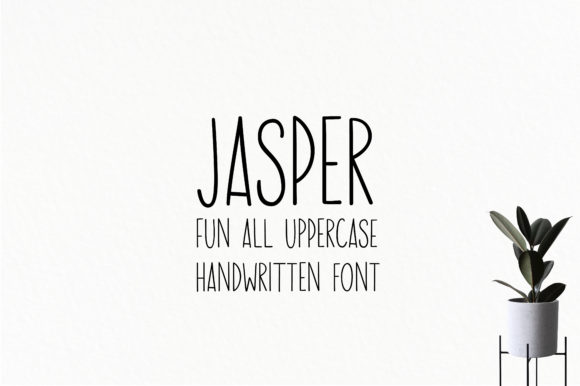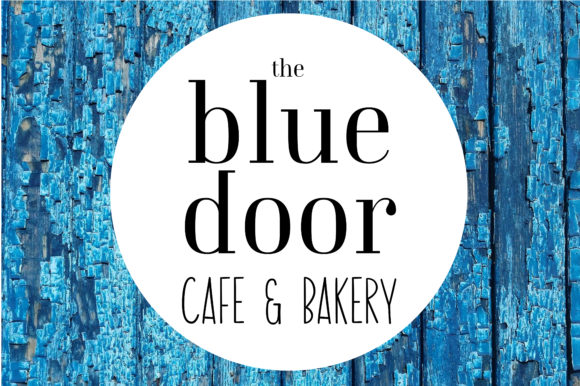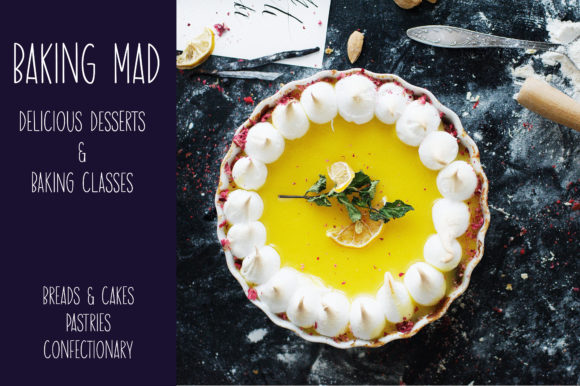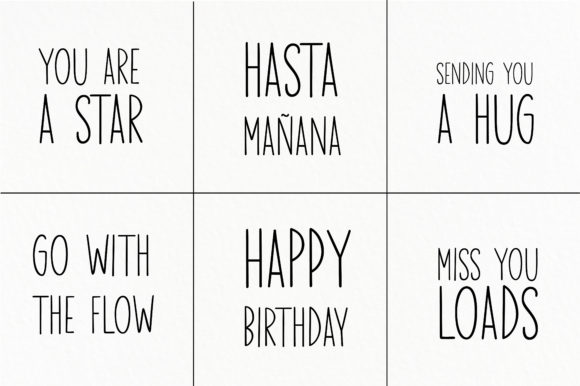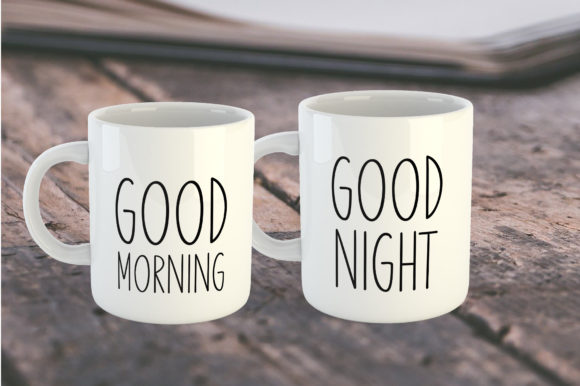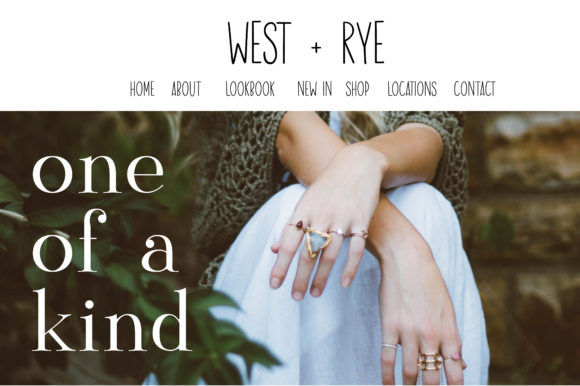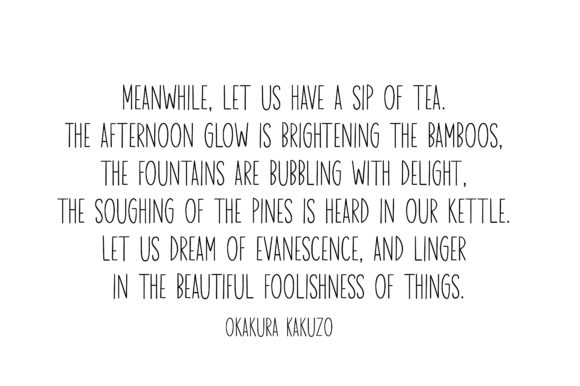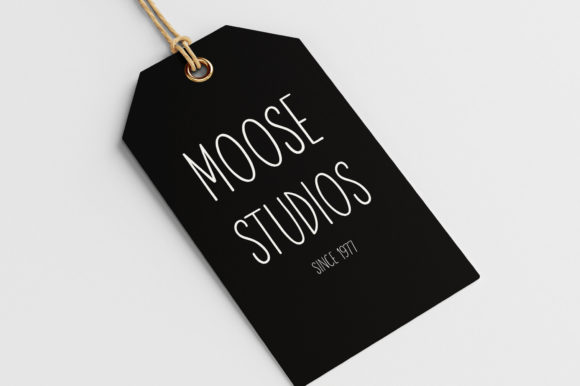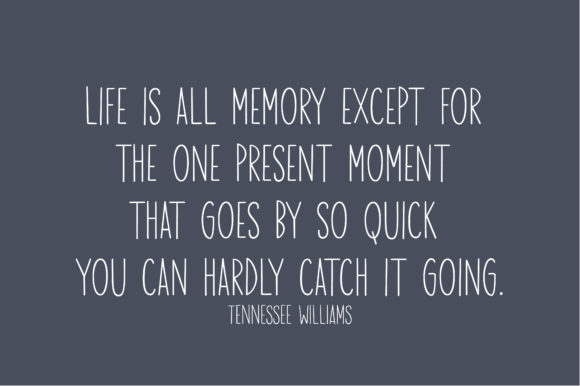
Jasper Font
About Jasper Font
Jasper is a simple and neat lettered handwritten font. Fall in love with its incredibly versatile style and use it to create spectacular designs!